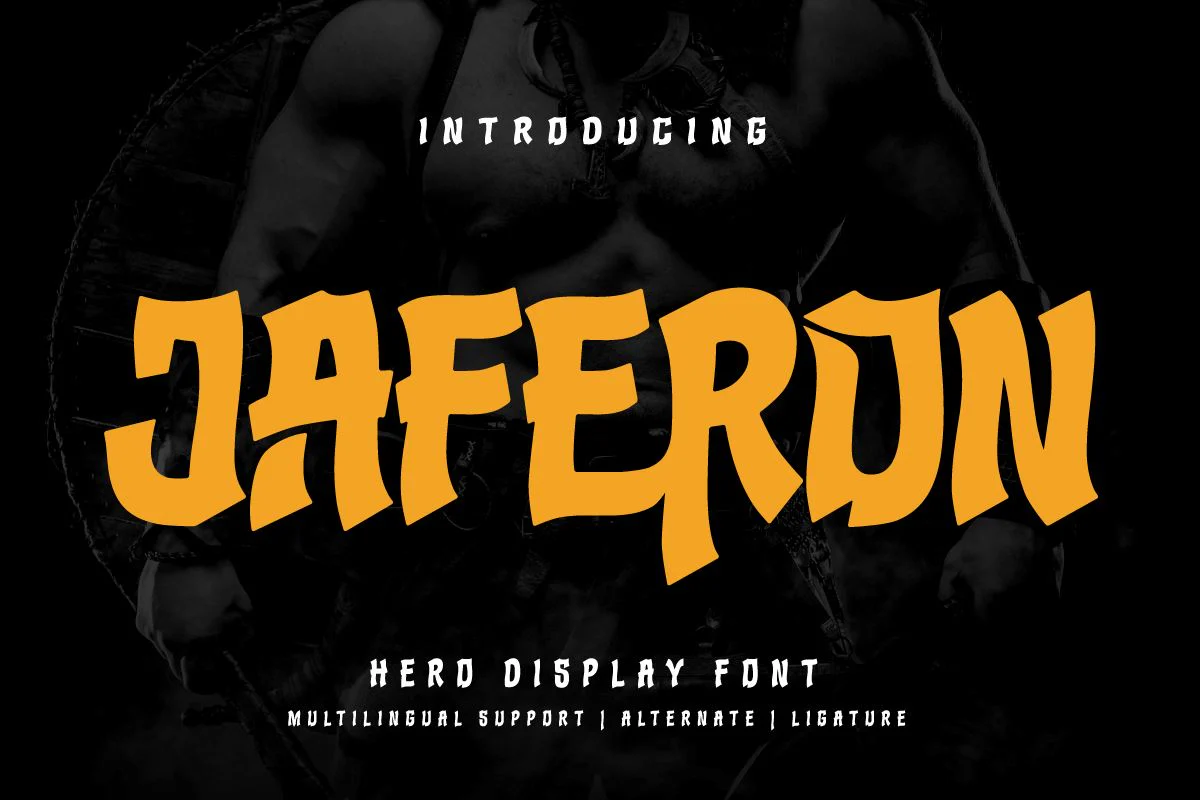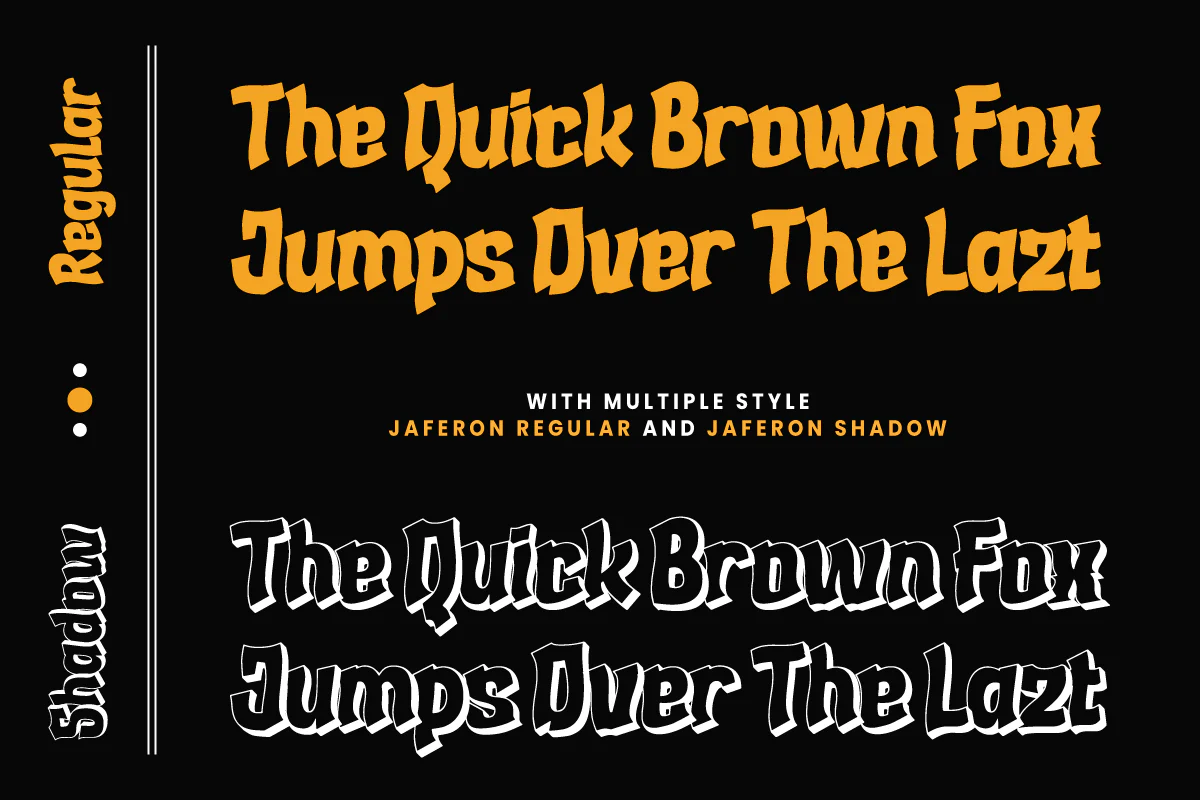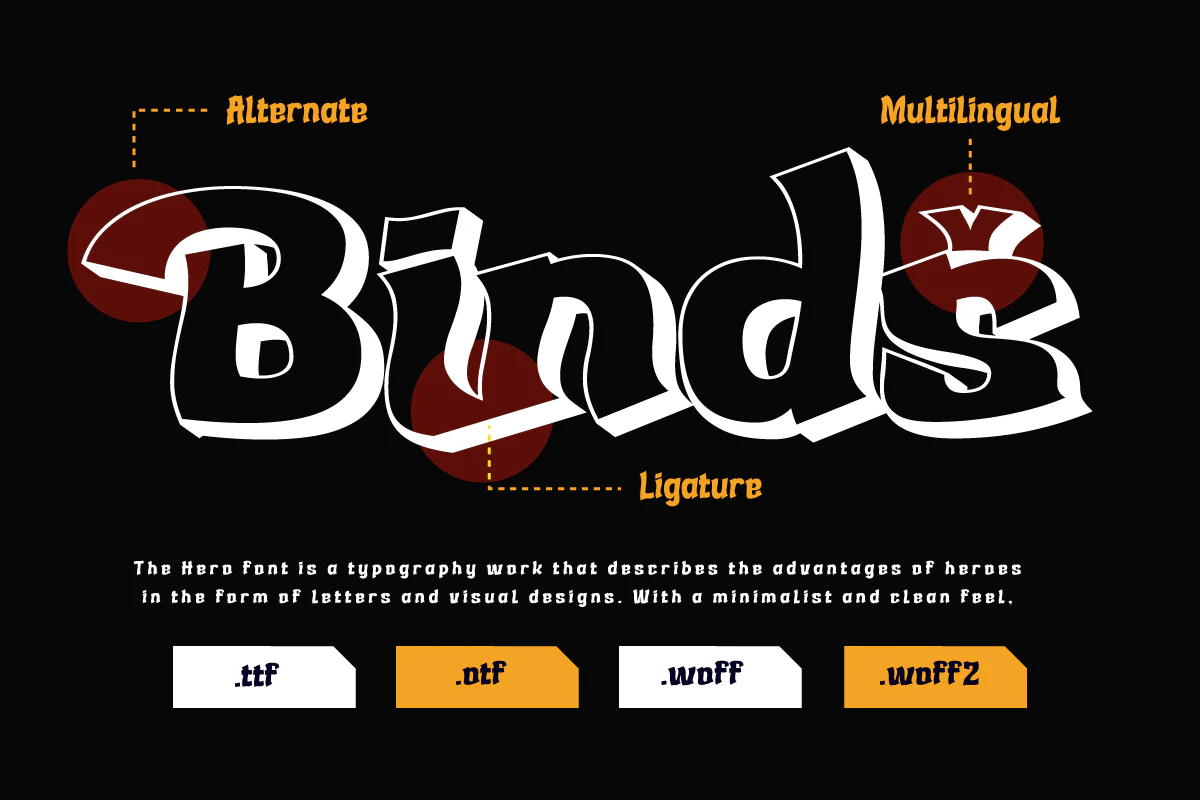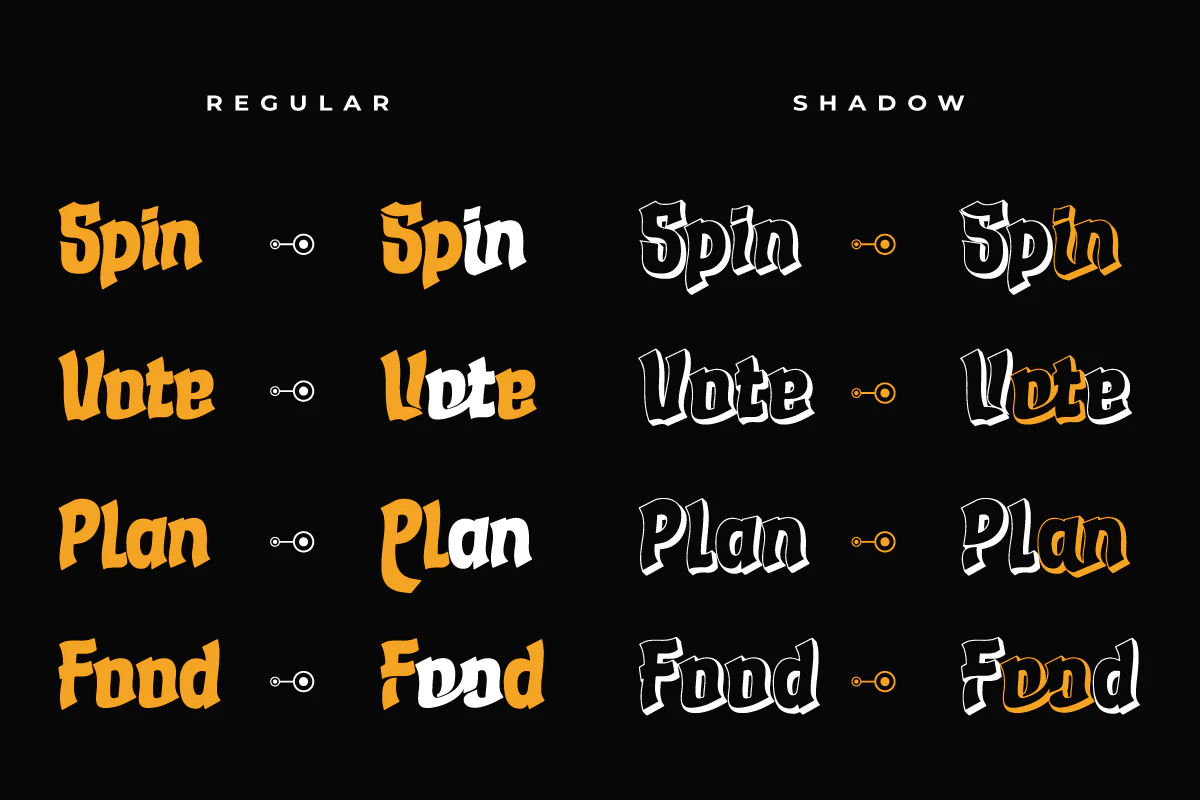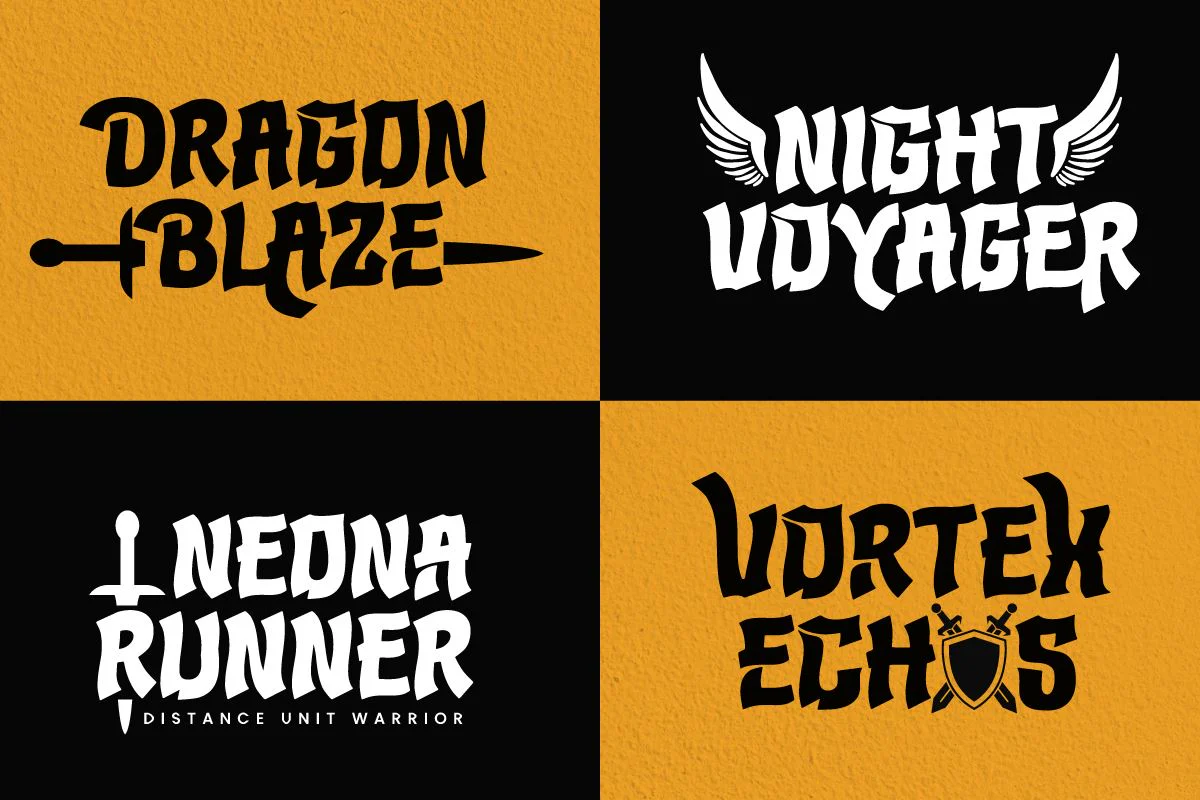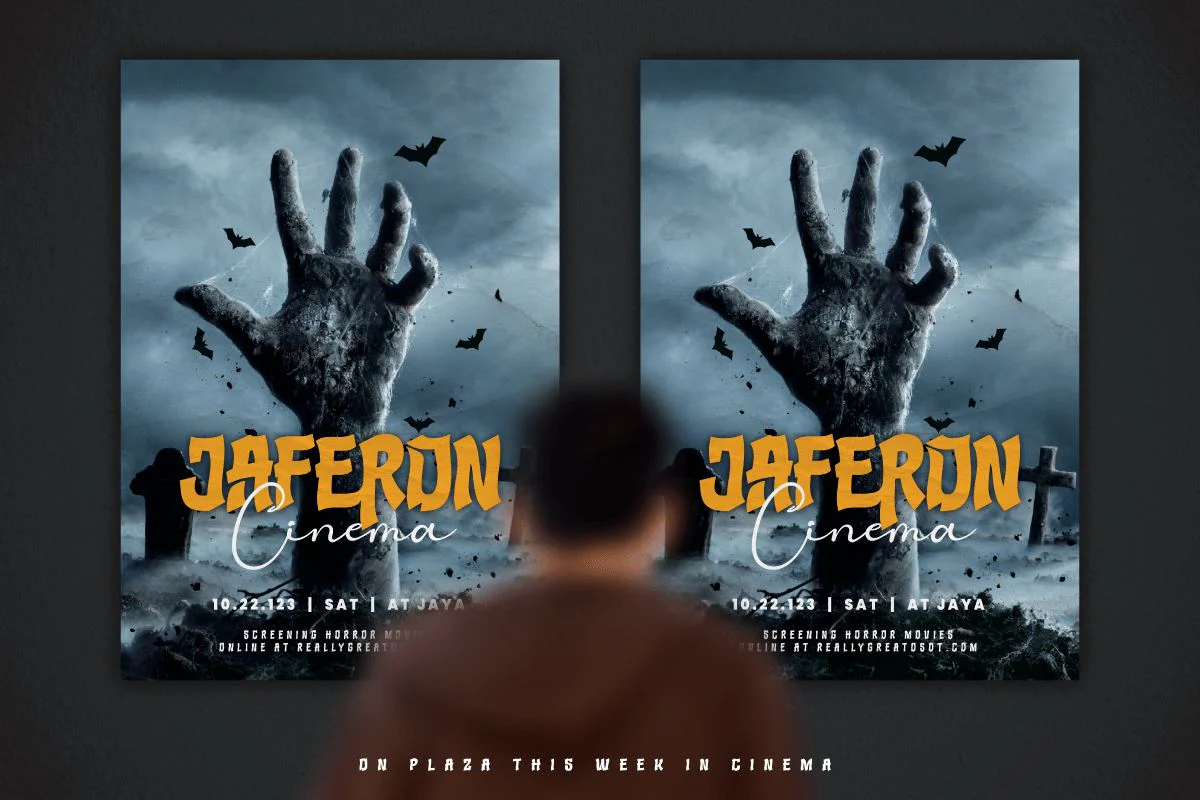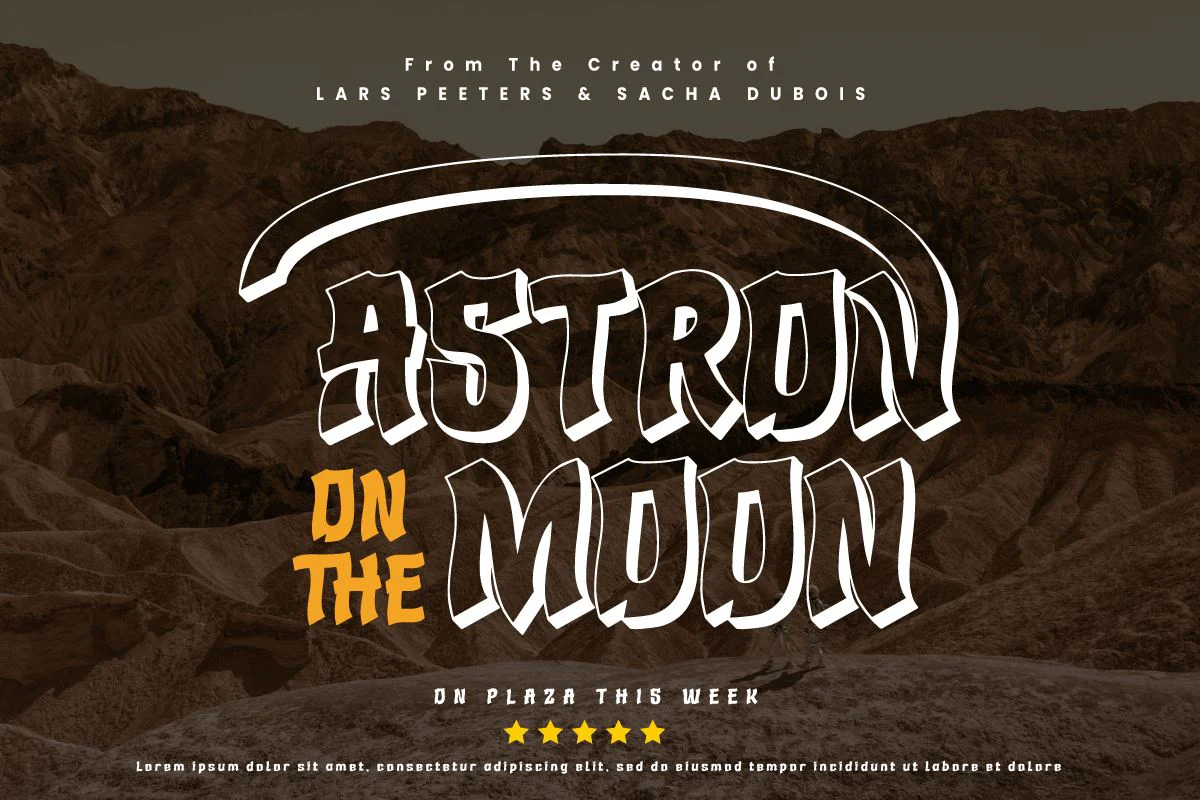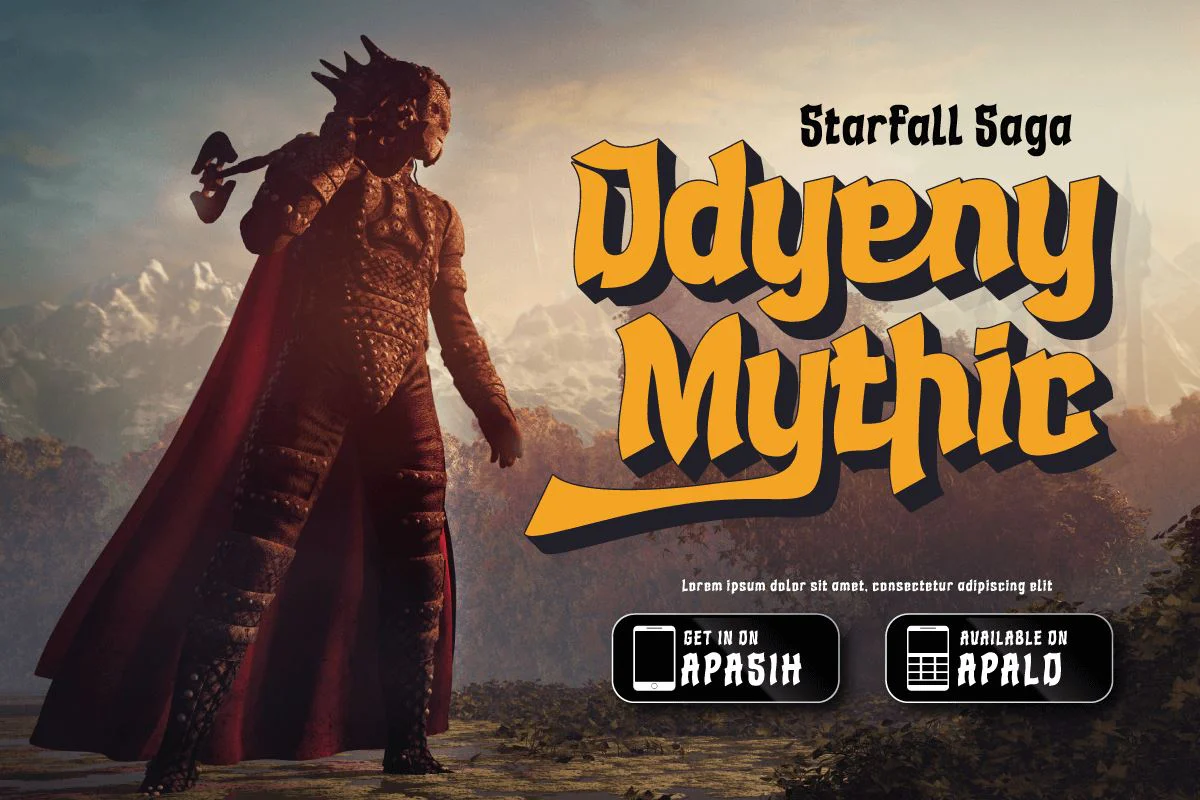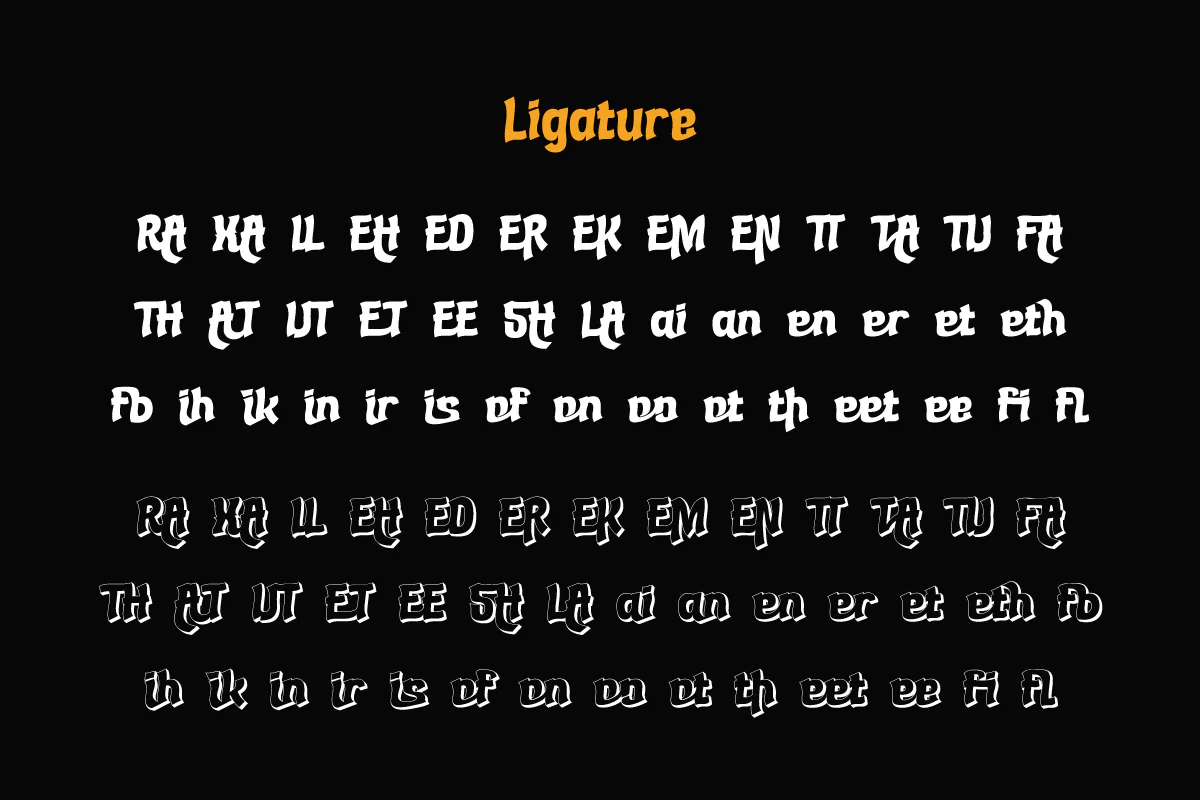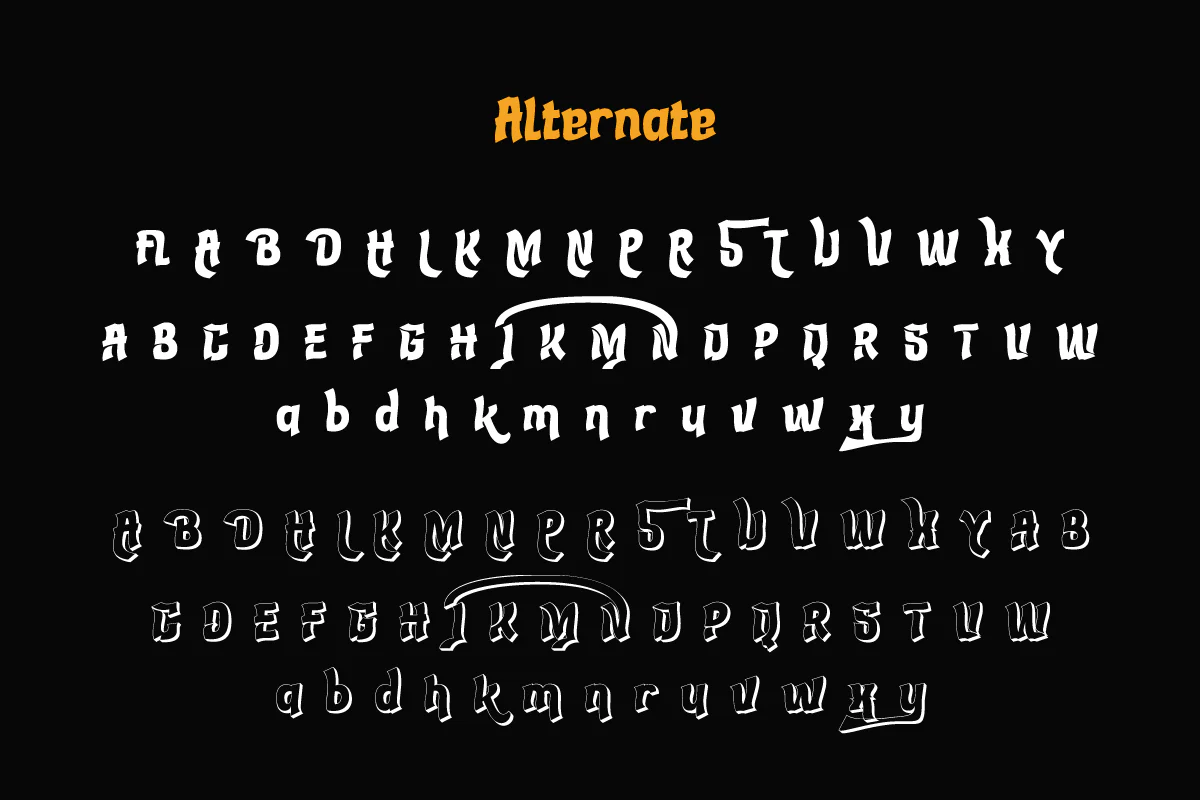
Jaferon | Display Hero Font
Jaferon is a display font that comes with a stunning superhero style. Ready to take the lead in projects that call for a bold, bold touch and a bold look.
With adorable and strong characters, Jaferon is suitable for film, game, and design worlds that require moving messages. You can feel the boldness in every line and curve of this typography.
Not just a display, Jaferon is also equipped with advanced features. Ligatures and alternates give a new dimension to your designs, allowing you to create interesting and unique variations.
In his thrilling journey, Jaferon brings stories from different cultures and languages with his multilingual support. This is an important step in bridging communication around the world.
Choose Jaferon and let each letter speak courage and strength in your design. From movie looks to bold gaming looks, this font will be an irreplaceable choice for conveying a compelling and powerful message. Get Jaferon now and create unforgettable visual masterpieces!
Jaferon is a display font that comes with a stunning superhero style. Ready to take the lead in projects that call for a bold, bold touch and a bold look.
With adorable and strong characters, Jaferon is suitable for film, game, and design worlds that require moving messages. You can feel the boldness in every line and curve of this typography.
Not just a display, Jaferon is also equipped with advanced features. Ligatures and alternates give a new dimension to your designs, allowing you to create interesting and unique variations.
In his thrilling journey, Jaferon brings stories from different cultures and languages with his multilingual support. This is an important step in bridging communication around the world.
Choose Jaferon and let each letter speak courage and strength in your design. From movie looks to bold gaming looks, this font will be an irreplaceable choice for conveying a compelling and powerful message. Get Jaferon now and create unforgettable visual masterpieces!